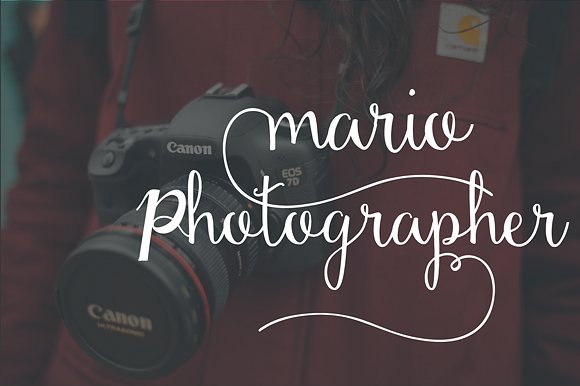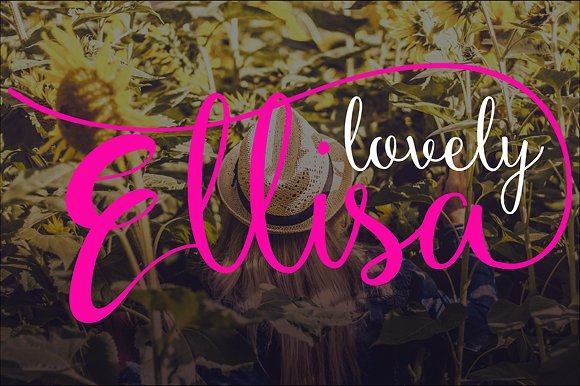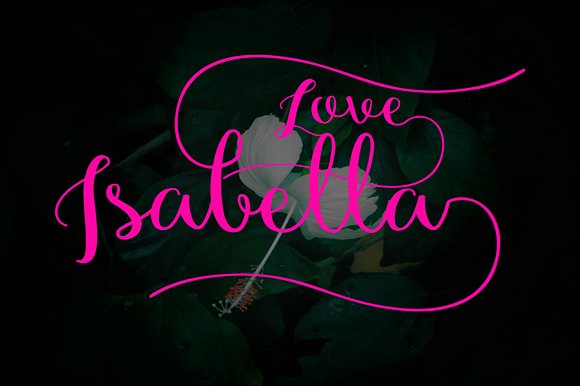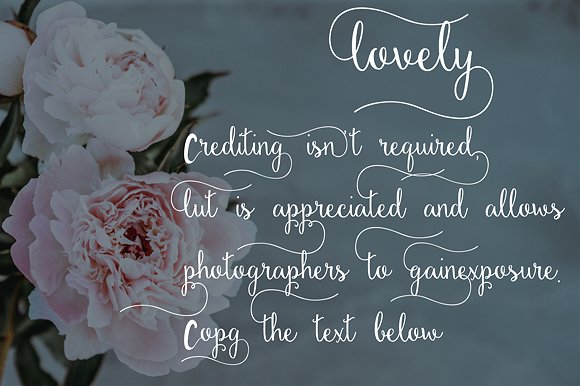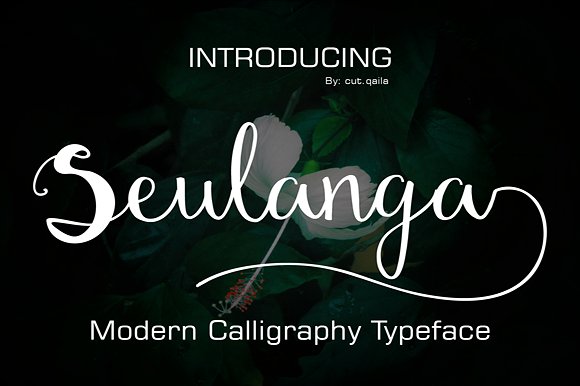
Seulanga Script Font
Seulanga is an elegant handwritten stylish calligraphy font. Seulanga – Handwritten Font also Suitable for Logo, greeting cards, quotes, posters, branding, name card, stationary, design title, blog header, art quote, typography, art, modern envelope lettering or book design, happening style like handdrawn design or watercolor design theme, craft design, any DIY project, book title, or any purpose to make our art/design project look pretty and trendy.